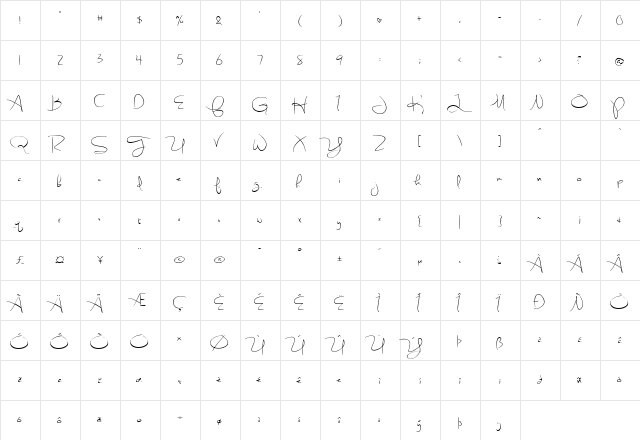
Sweetly Broken Regular
| Foundry | Brittney Murphy |
| Designer | Brittney Murphy |
Design Context for Sweetly Broken Typeface
Sweetly Broken is a composed and adaptable typeface that performs quietly and consistently across a wide range of design contexts.